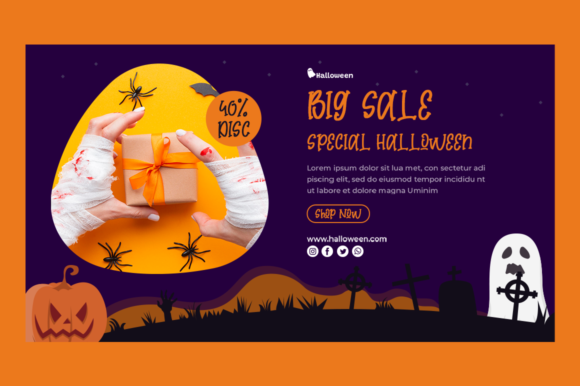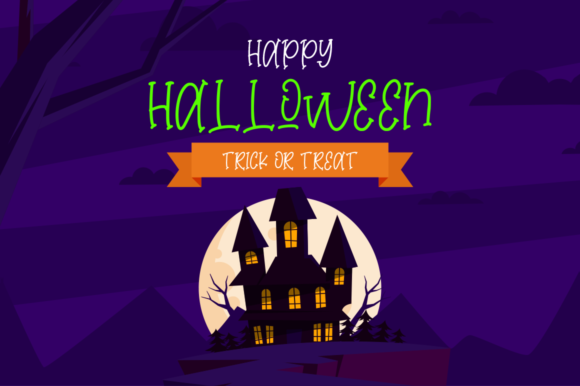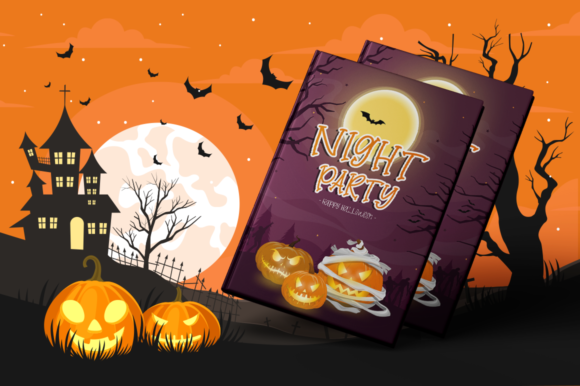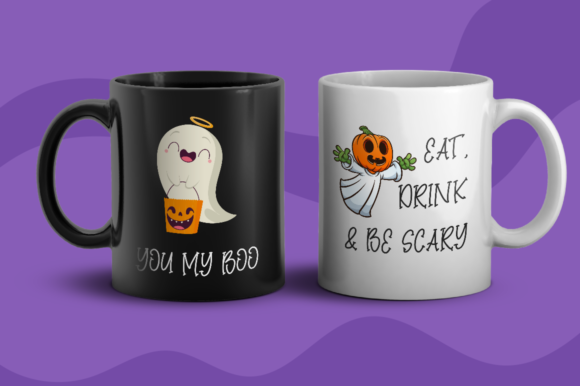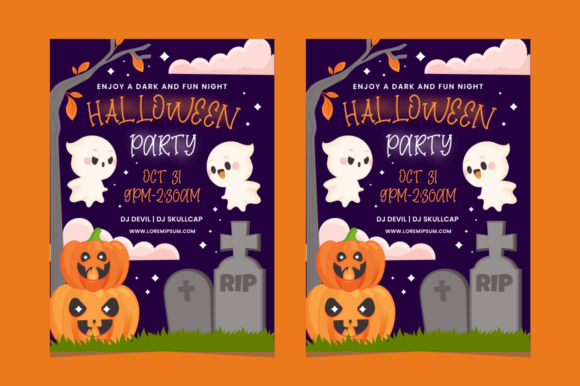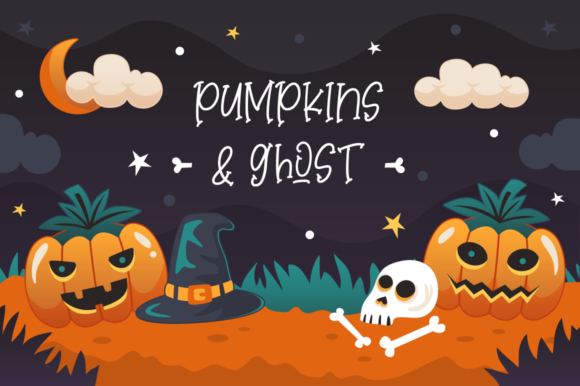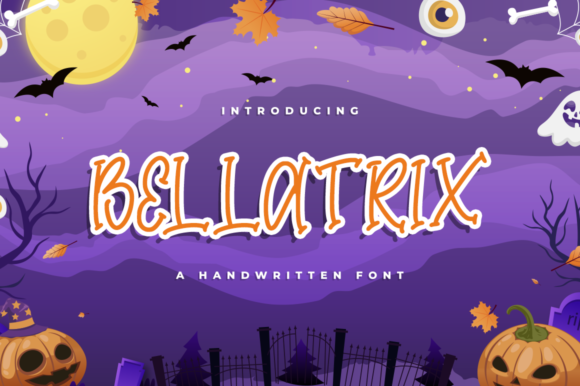
Bellatrix Font: The Spookiest Display Font for Your Halloween Projects
Bellatrix is a cool and spooky display font that is perfectly suitable for any Halloween-related project or crafty idea! The only limit is your imagination. This font is designed to add a touch of eeriness and mystery to your designs, making it ideal for Halloween-themed projects, horror-themed crafts, and even spooky party invitations.
What Makes Bellatrix Font So Special?
Bellatrix font is a unique and eye-catching display font that stands out from the rest. Its spooky and mysterious vibe is perfect for designers and crafters who want to create something that will leave a lasting impression. The font’s design is inspired by the darker side of life, making it perfect for Halloween-themed projects, horror movies, and haunted houses.
Features of Bellatrix Font
- Unique Design: Bellatrix font has a one-of-a-kind design that will make your projects stand out from the rest.
- Spooky and Mysterious: The font’s spooky and mysterious vibe is perfect for Halloween-themed projects and horror-themed crafts.
- High-Quality: The font is designed with high-quality and clear lines, making it perfect for printing and digital use.
- Multipurpose: The font can be used for a variety of projects, including Halloween-themed crafts, horror movies, haunted houses, and spooky party invitations.
Uses of Bellatrix Font
Bellatrix font can be used for a wide range of projects, including:
- Halloween-themed Crafts: The font is perfect for Halloween-themed crafts, such as making spooky decorations, cards, and invitations.
- Horror Movies and TV Shows: The font can be used to create titles, posters, and other promotional materials for horror movies and TV shows.
- Haunted Houses and Attractions: The font can be used to create signs, posters, and other promotional materials for haunted houses and attractions.
- Spooky Party Invitations: The font is perfect for creating spooky party invitations that will set the tone for a haunted celebration.
- Graphic Design Projects: The font can be used for a variety of graphic design projects, including brochures, flyers, and posters.
Tips for Using Bellatrix Font
Here are some tips for using Bellatrix font:
- Use it Sparingly: Because of its bold and eye-catching design, it’s best to use Bellatrix font sparingly to avoid overwhelming your design.
- Pair it with Other Fonts: Bellatrix font can be paired with other fonts to create a unique and interesting design.
- Experiment with Colors: The font can be used with a variety of colors to create a unique and eye-catching design.
- Use it for Headlines: Bellatrix font is perfect for headlines and titles, making it a great choice for designers who want to make a statement.
Bellatrix font is a unique and eye-catching display font that is perfect for Halloween-themed projects and horror-themed crafts. Its spooky and mysterious vibe is sure to leave a lasting impression on your audience. With its high-quality design and ease of use, Bellatrix font is a great choice for designers and crafters of all levels. So why not give it a try and see what spooky creations you can come up with?
- What is Bellatrix font? Bellatrix font is a cool and spooky display font that is perfect for Halloween-themed projects and horror-themed crafts.